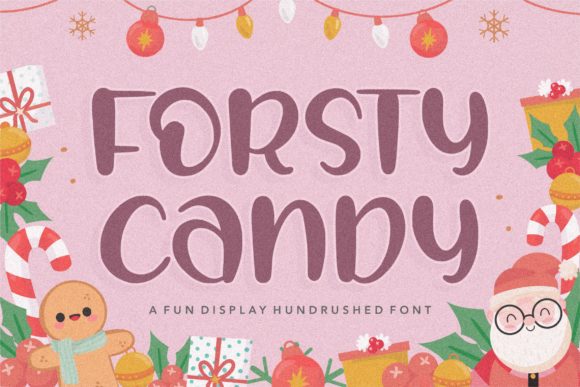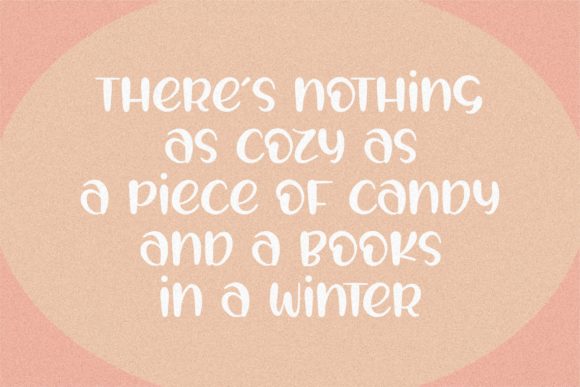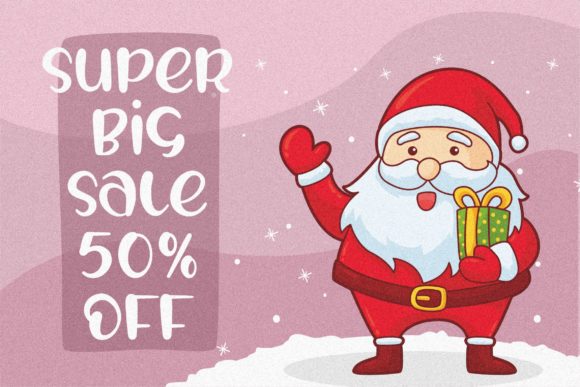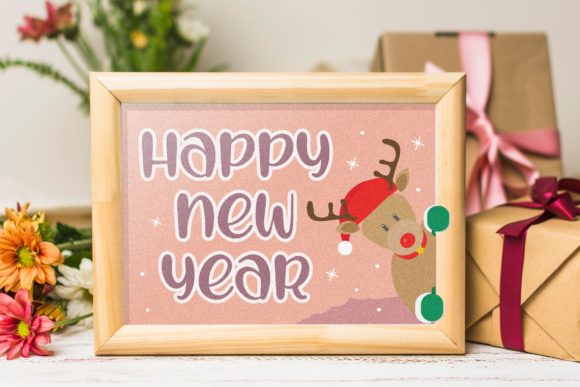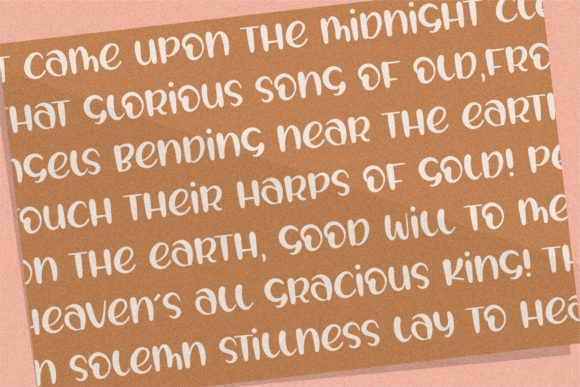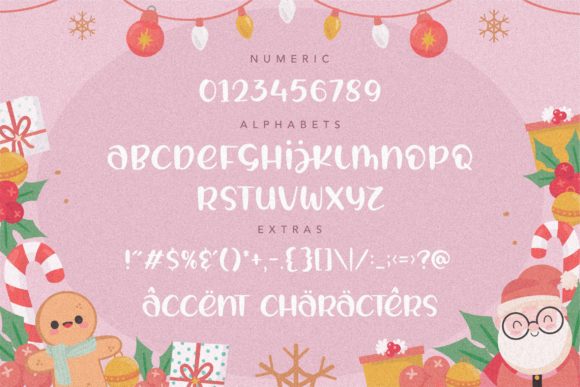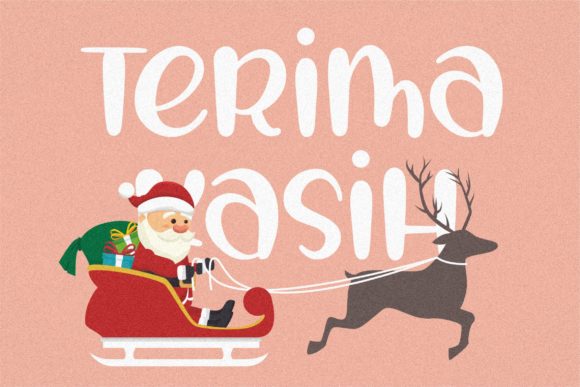
Forsty Candy Font
About Forsty Candy Font
Forsty Candy is a fun and festive handwritten font. Its sweet and well rounded letters make this font a work of art. Fall in love with its incredibly versatile style and use it to create spectacular designs!